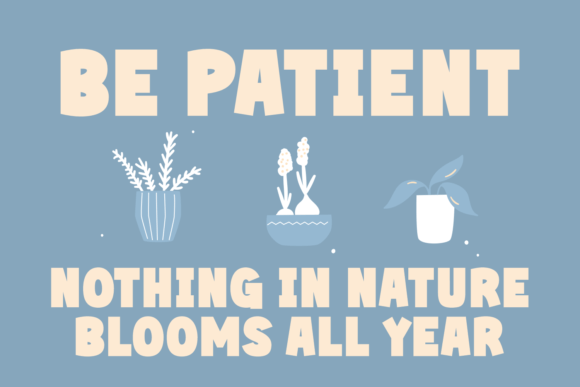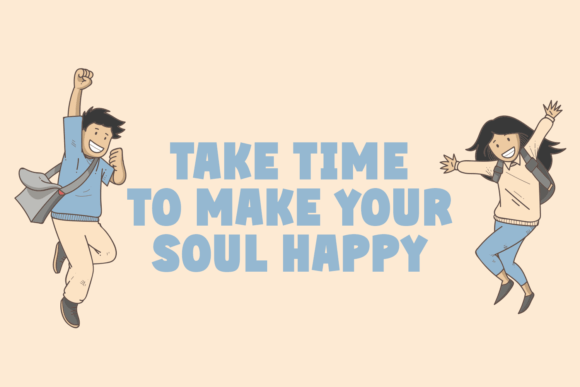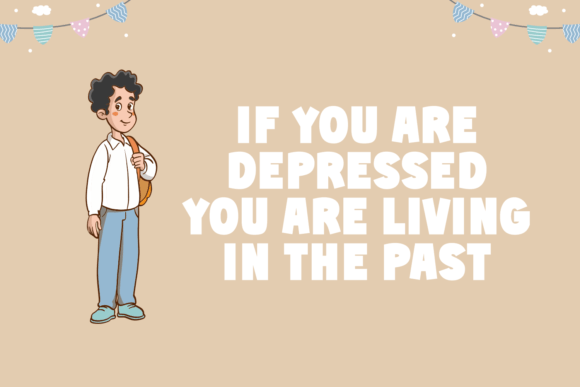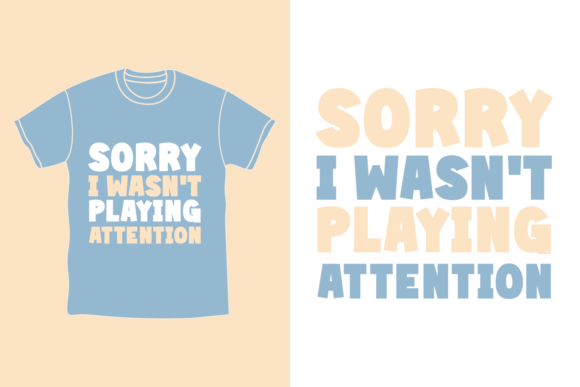
Introduction to Cidro Atimu Font
Do you ever find yourself sitting in front of a blank canvas, staring at your computer screen, and suddenly you’re hit with a wave of creative inspiration? Maybe it’s the perfect phrase for a greeting card, or the ideal title for a children’s book. Whatever it is, you know you need a font that’s going to bring your idea to life.
That’s where the Cidro Atimu Font comes in – a high-quality, free download that’s perfect for designers looking to add a touch of friendliness to their creative project. With its transparent background and effortless readability, this font is a valuable addition to any design resource. Whether you’re working on a digital design, crafting a handmade card, or creating a presentation, the Cidro Atimu Font is sure to be a crowd-pleaser.
Key Features of Cidro Atimu Font
- Transparent background, allowing for easy integration with various design elements
- Supports various languages, including Latin, Cyrillic, and Greek alphabets
- Designed with a unique, modern aesthetic, making it perfect for contemporary design projects
Honest Review: Cidro Atimu Font
As a designer, I’m always on the lookout for high-quality design resources that can elevate my creative projects. The Cidro Atimu Font caught my attention, and I decided to give it a try. Here’s my honest review.
- ✨ Beautiful, modern design that’s perfect for a variety of creative projects
- ✨ High-quality font that’s clear and easy to read
- ✨ Transparent background, allowing for easy customization and integration with other design elements
- ⚠️ Limited character set, which may not be suitable for projects that require a wide range of characters
- ⚠️ May not be suitable for print projects, as it’s designed for digital use
Overall, I’m impressed with the Cidro Atimu Font. It’s a great addition to any designer’s toolkit, especially for creative projects that require a modern and sleek look. While it has some limitations, it’s a solid choice for designers who need a high-quality, free design resource.
How to Use Cidro Atimu Font
The Cidro Atimu Font is a high-quality, free download design resource perfect for any creative project. With its unique style and transparent background, it’s ideal for adding a touch of elegance to your designs.
Tips for Getting the Most Out of Cidro Atimu Font
To get the most out of the Cidro Atimu Font, try combining it with other design elements, such as images and shapes, to create a unique and eye-catching design.
Common Use Cases for Cidro Atimu Font
The Cidro Atimu Font is perfect for use in a variety of creative projects, including:
Logo design
Brochure design
Business card design
The Great Vibes Font is a fun and playful font perfect for creative projects that require a carefree and energetic vibe. It features a transparent background and is available for free download, making it a great design resource for designers on a budget. When to use: social media graphics, blog posts, and advertisements. Compared to Cidro Atimu Font, Great Vibes Font has a more casual and relaxed feel, making it suitable for informal designs.